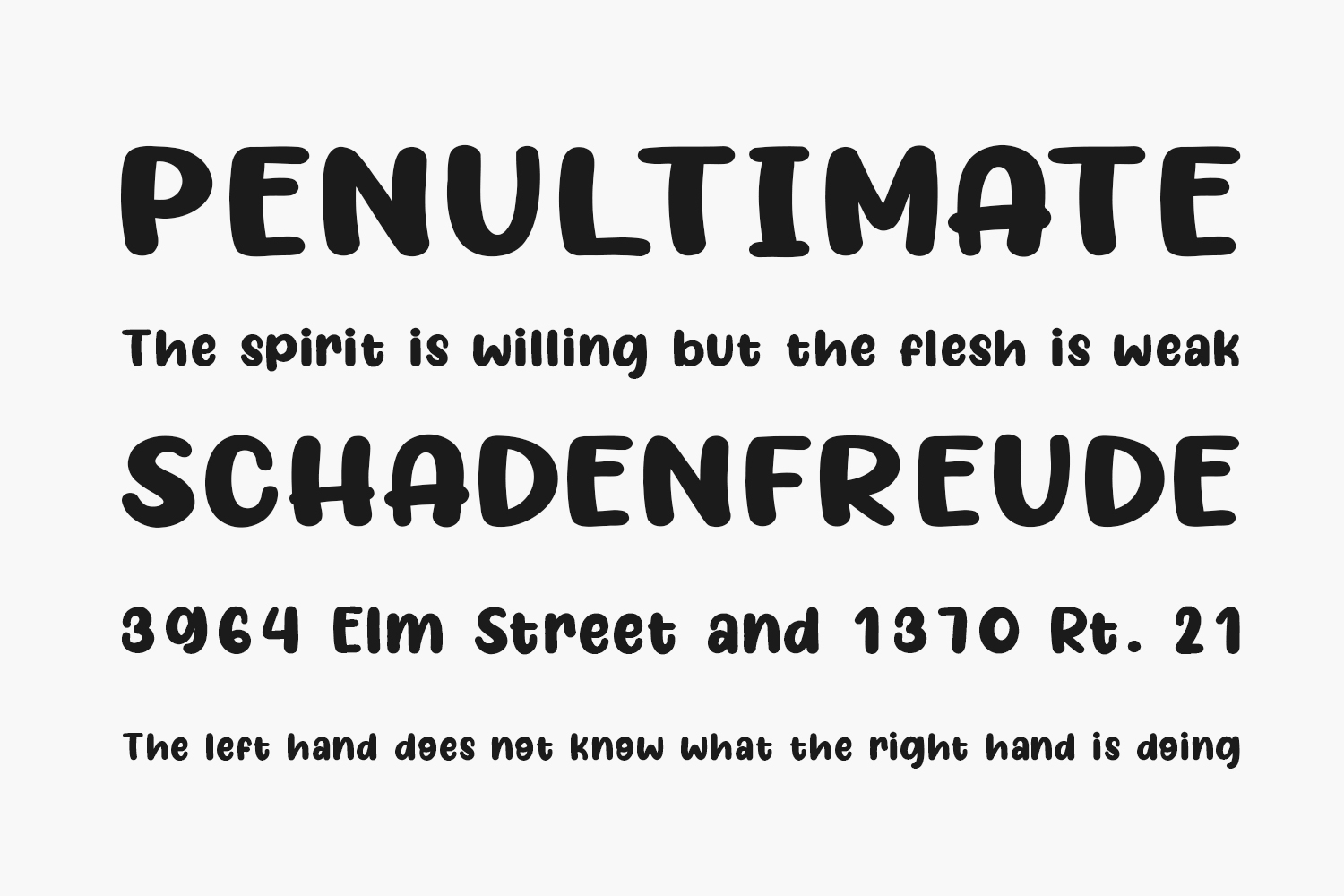
Springtime Romance Free Font is a fun and friendly display font. Thick lettered yet cute, this font will make each of your designs stand out. Add it confidently to your favorite creations and let yourself be amazed by the outcome generated. Springtime Romance Free Font was designed by Stefie Justprince and is free for personal use only. Please purchase the full version for commercial use.